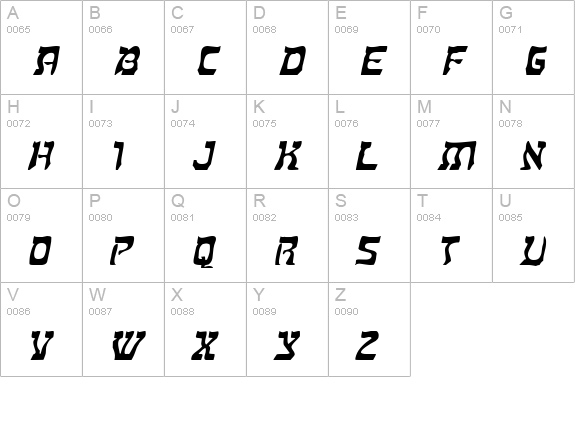
Kosher Extended Italic is a distinctive, extended-width, italic variant in the Kosher typeface family \xE2\x80\x94 well suited to design and typography projects.
Kosher Extended Italic font is a stylish and sophisticated typeface that exudes elegance and professionalism. Its sleek and modern design makes it perfect for a wide range of design projects, from branding to editorial work. The italicized version adds a touch of flair and sophistication to any text, making it stand out in a subtle yet impactful way. What sets Kosher Extended Italic font apart is its versatility and readability. The extended characters provide a unique and distinctive look, while maintaining excellent legibility across various platforms and devices. Whether you're creating a website, designing a poster, or crafting a logo, this font is sure to make a lasting impression. And the best part? Kosher Extended Italic font is completely free to download at FontsMarket.com. This means you can elevate your design projects without breaking the bank. So why wait? Download Kosher Extended Italic font today and take your designs to the next level.